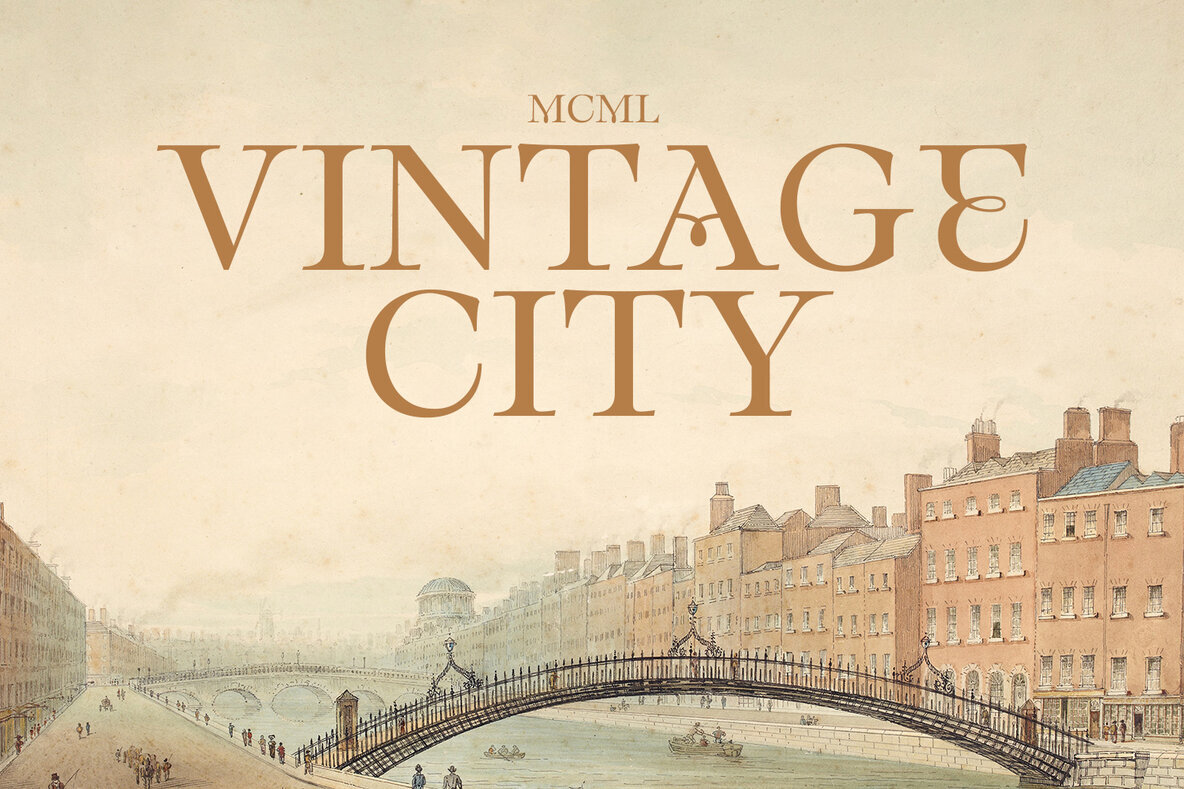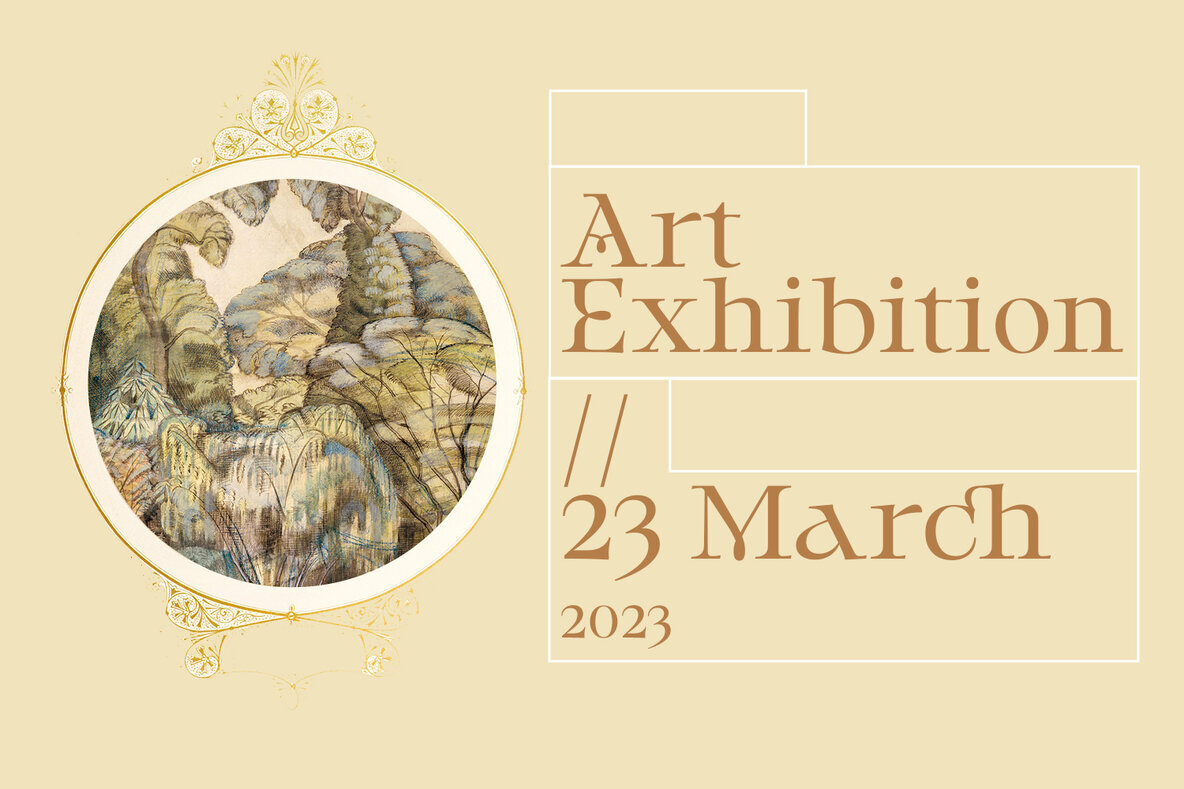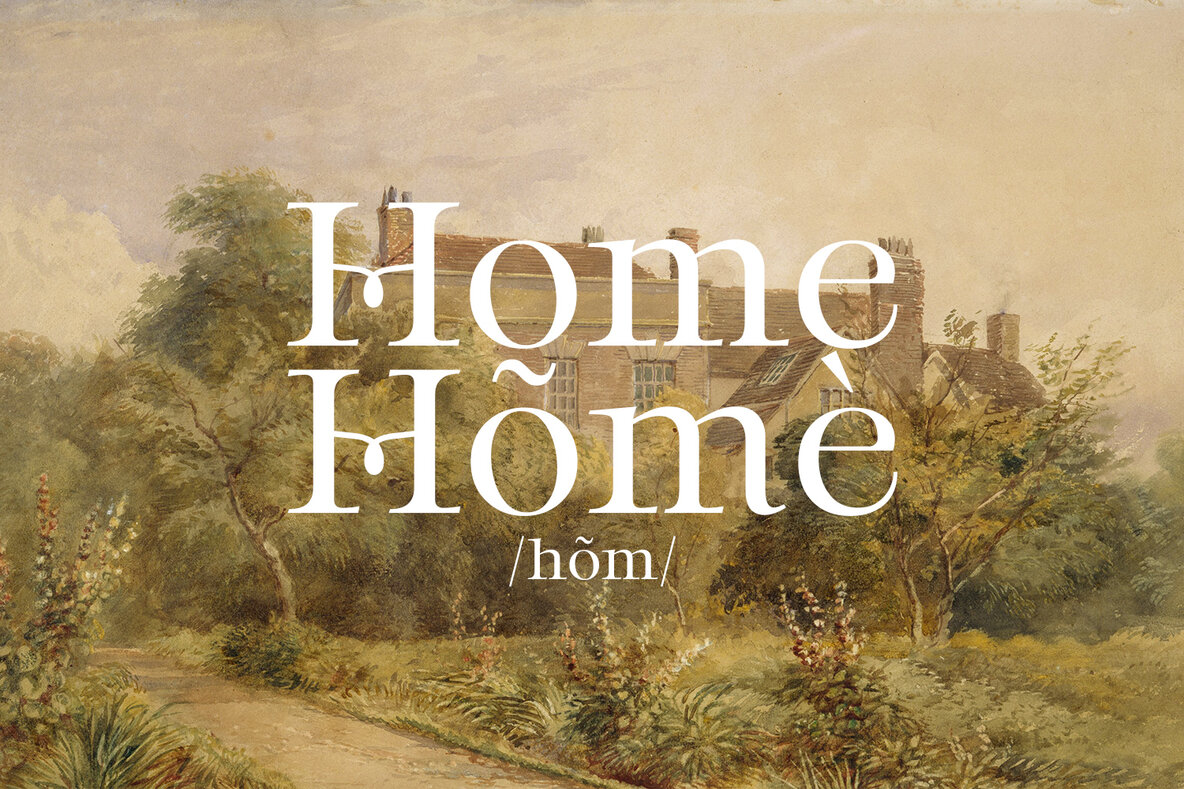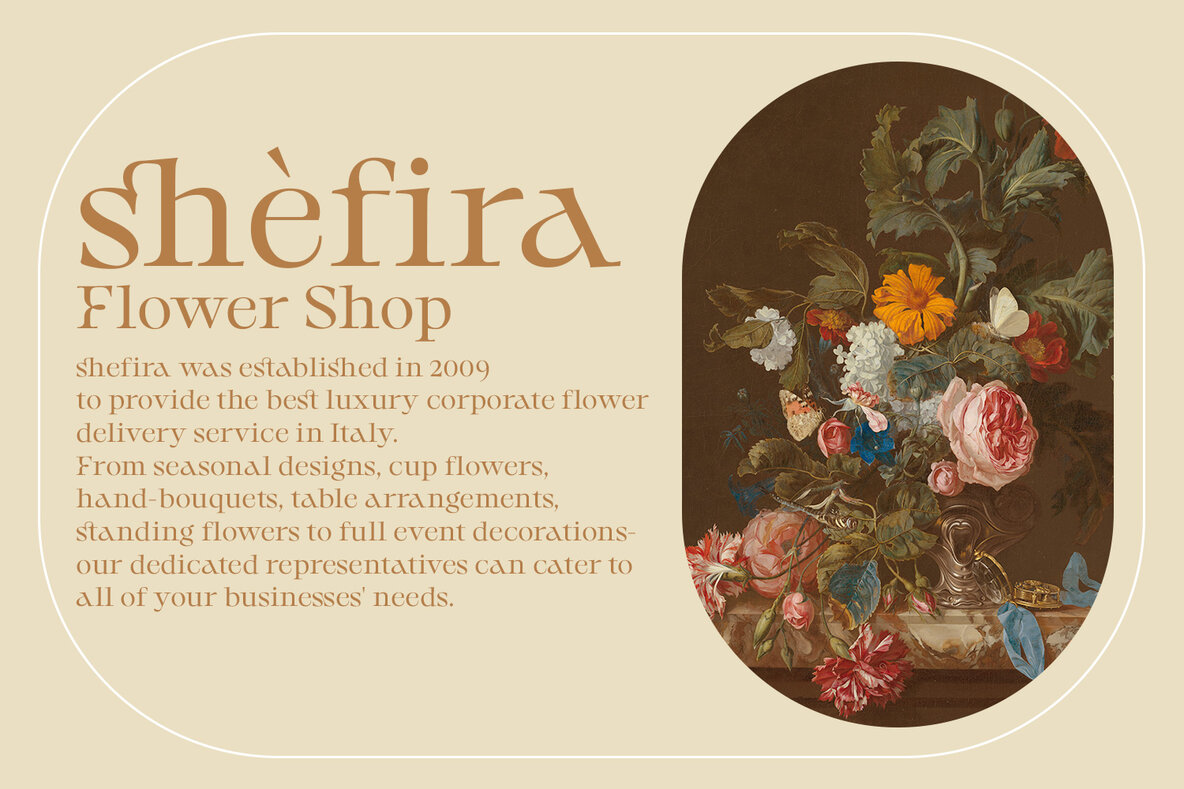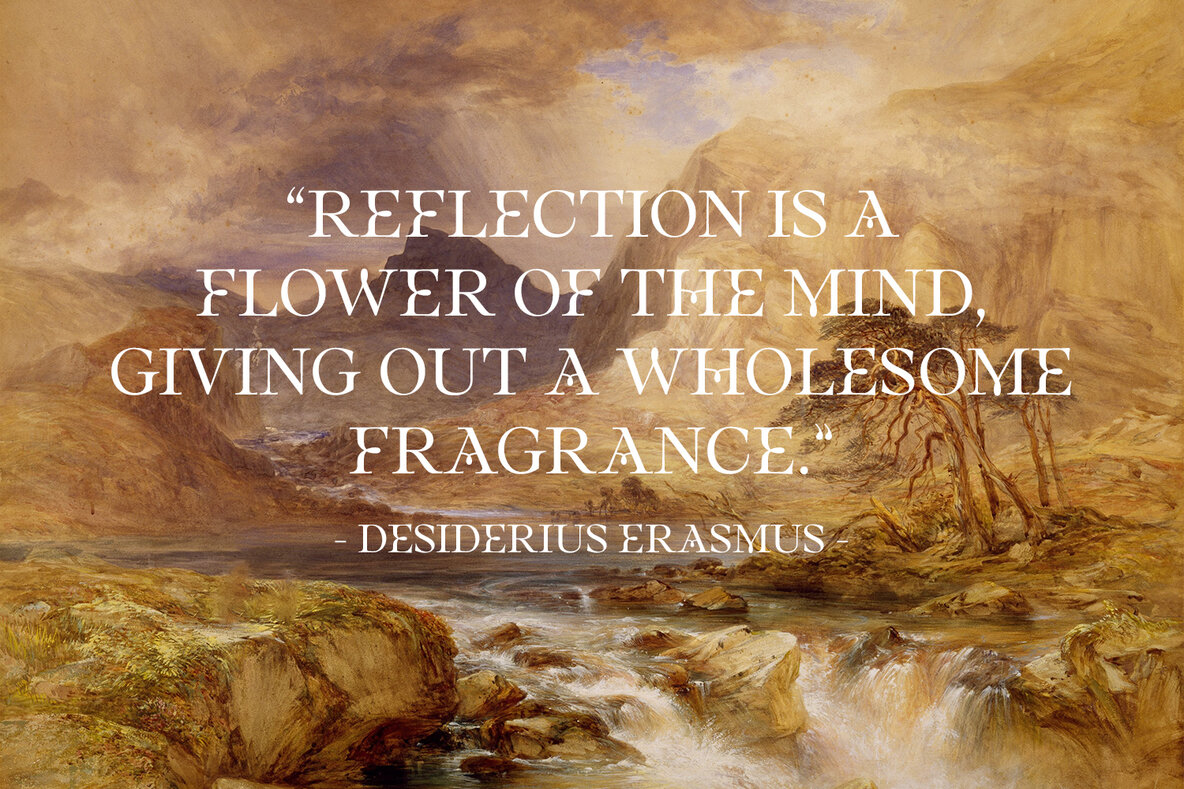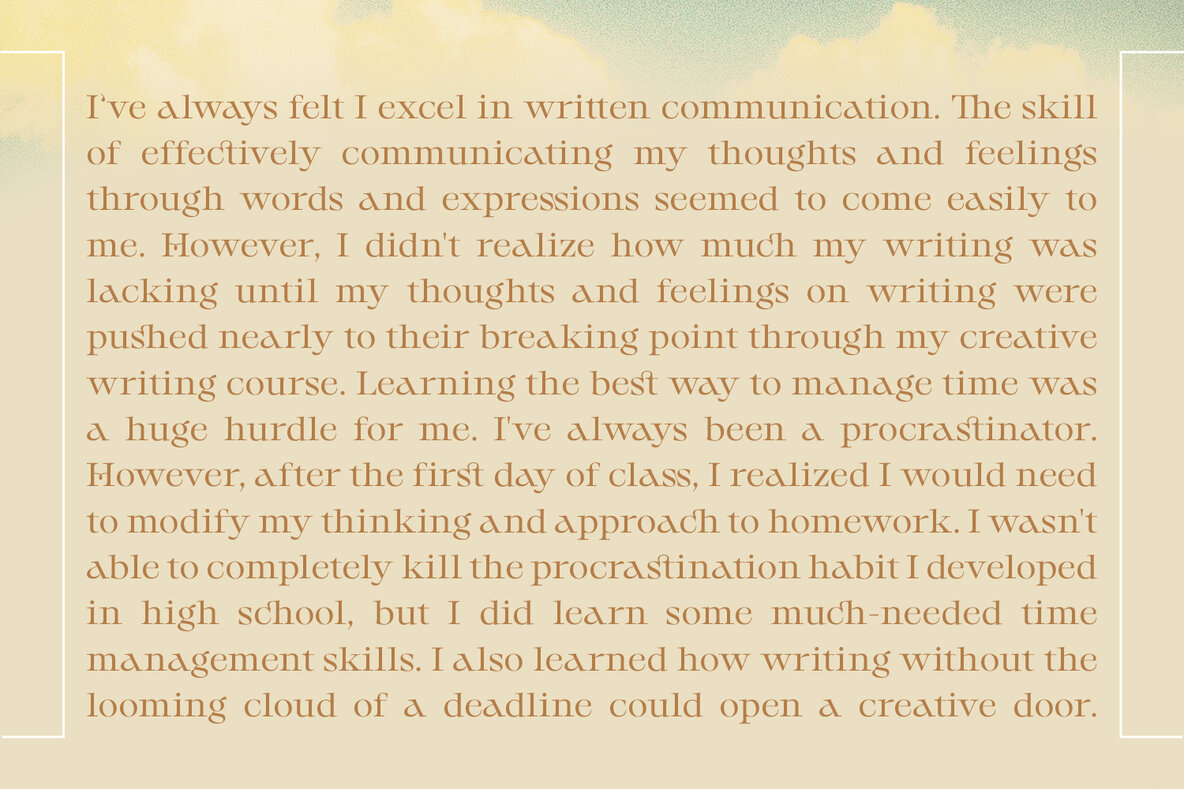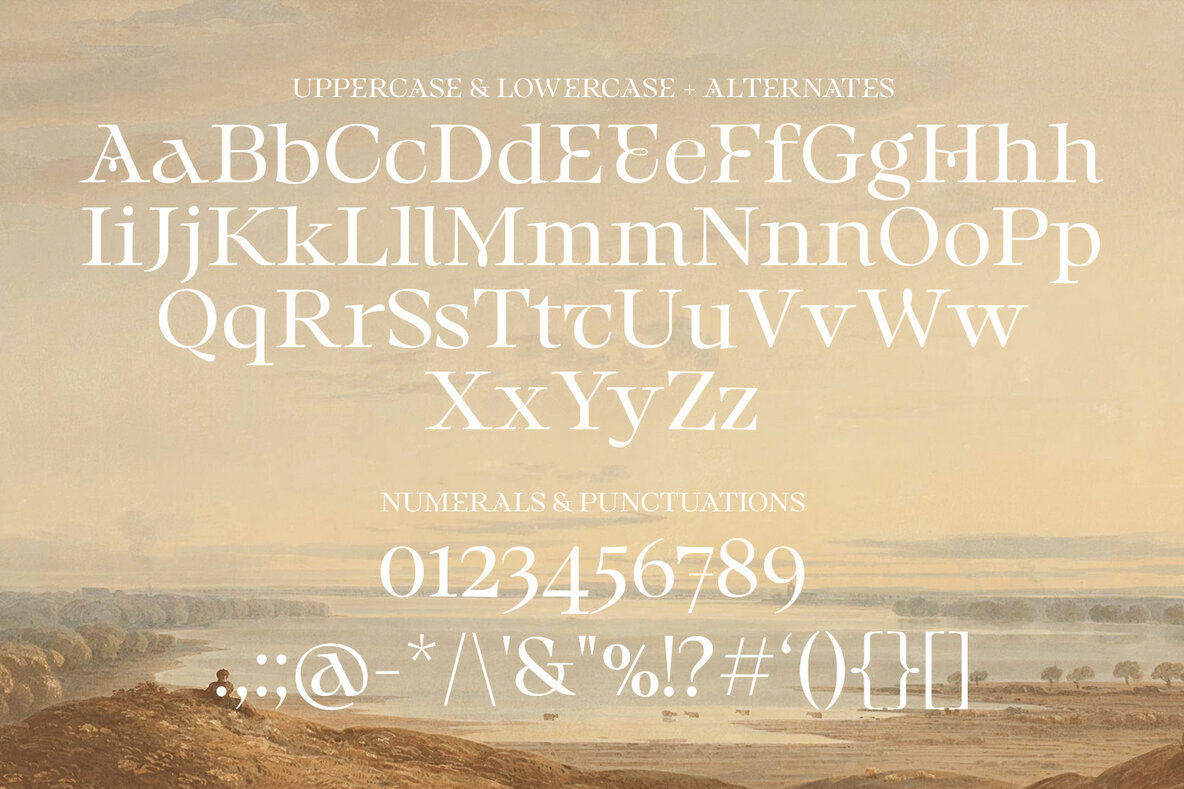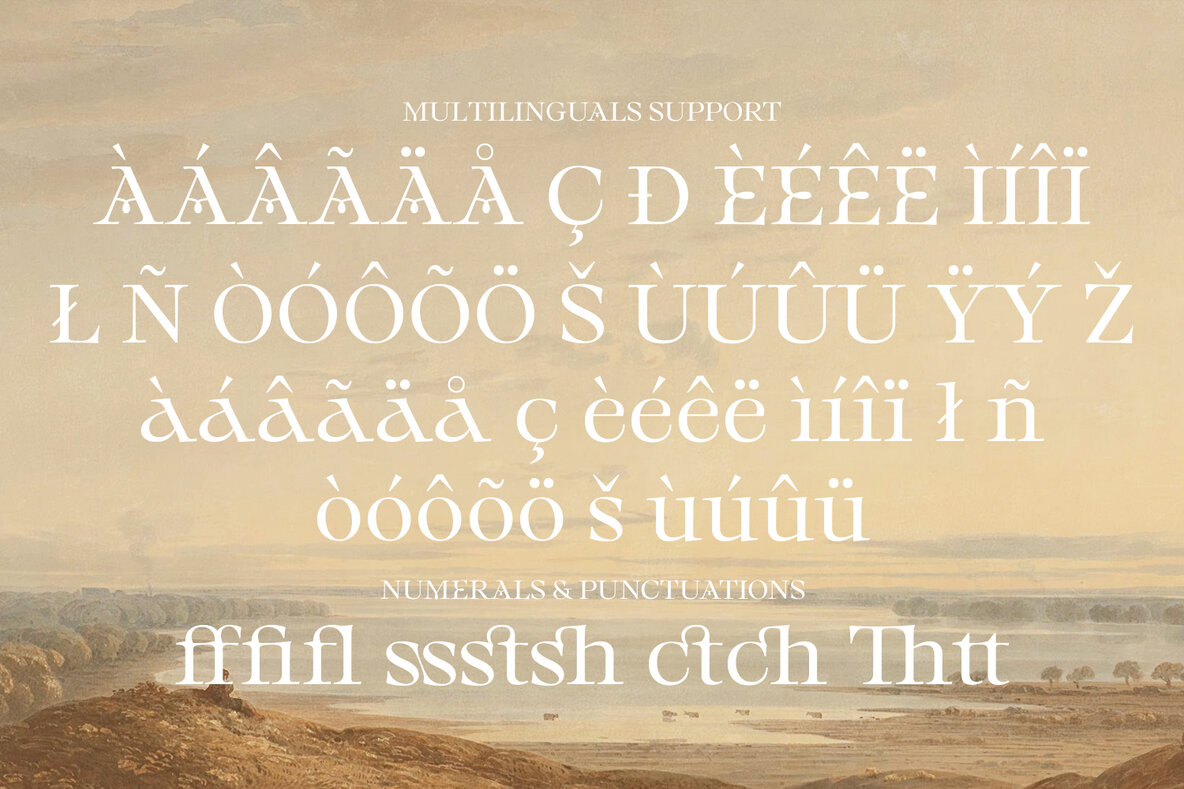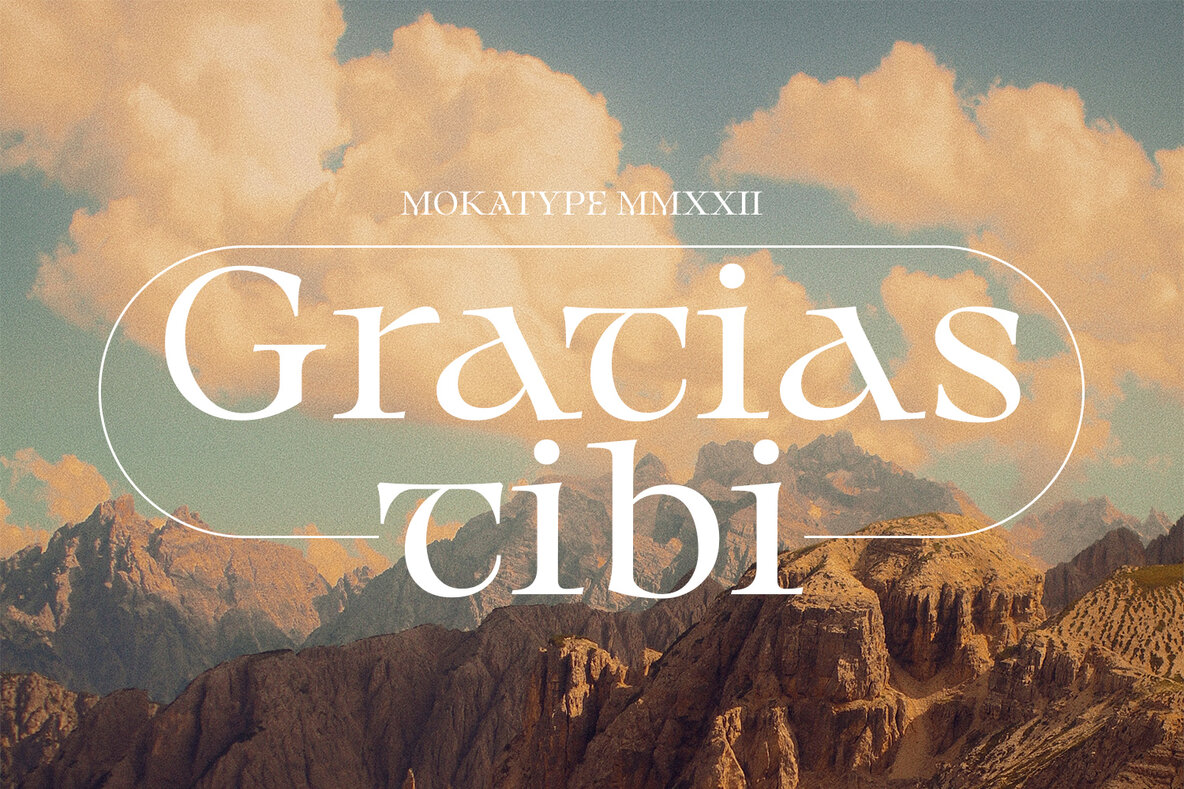
Steravina Font
Steravina Regular
Take your design to the next level with Steravina - an elegant serif font, crafted for modern sophistication. Inspired by FS Renaissance yet reimagined for today's designs, it features vintage and traditional nuances seamlessly blended into a clean aesthetic that remains both legible and aesthetically appealing – perfect for posters, logotypes or interfaces of any kind! Add extra flair to headlines & quotes with alternates & ligatures included.
- Ligatures (Opentype features)
- International Accent